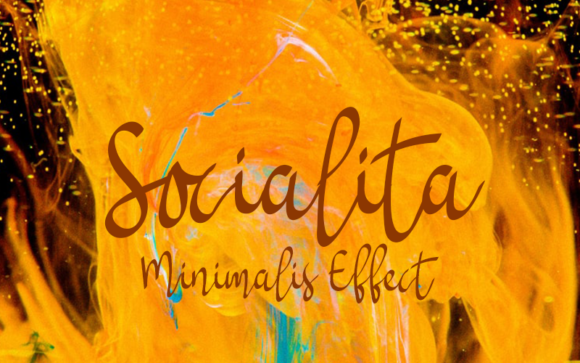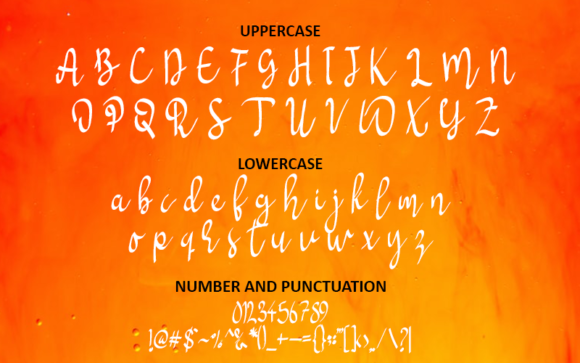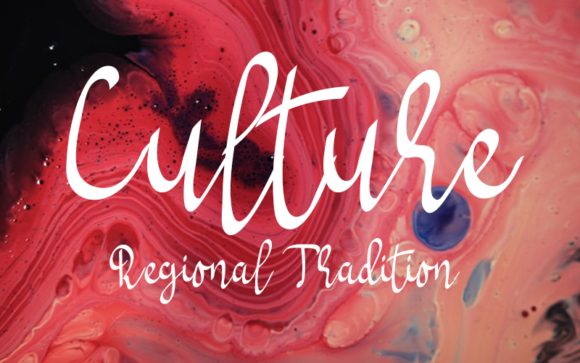
Socialita Font
About Socialita Font
Socialita is an unique and modern font with a playful feel. This enchanting handwritten font will turn any creative idea into a true standout. It will elevate a wide range of design projects to the highest level, be it branding, headings, wedding designs, invitations, signatures, logos, labels, and much more!